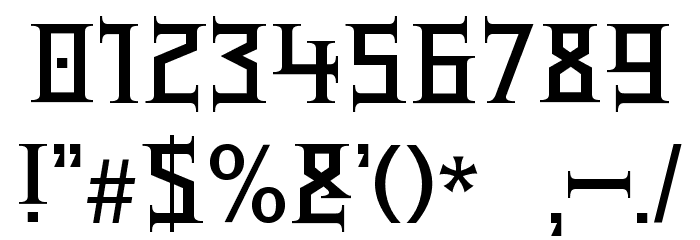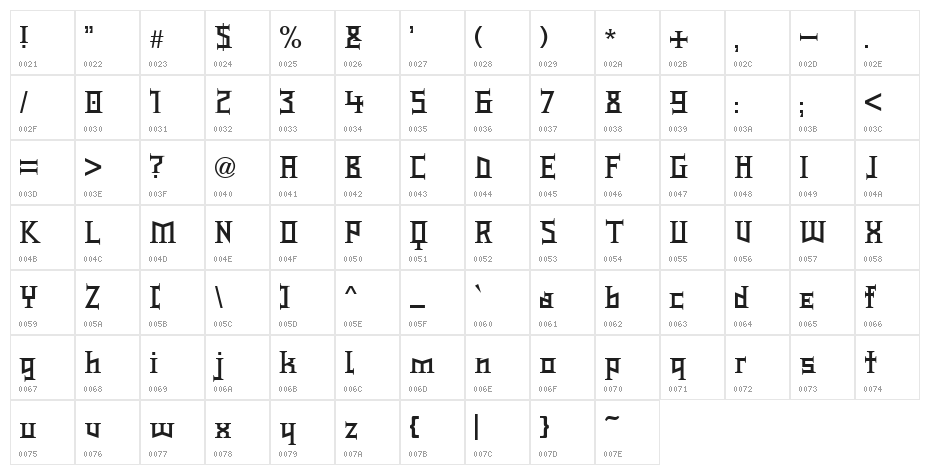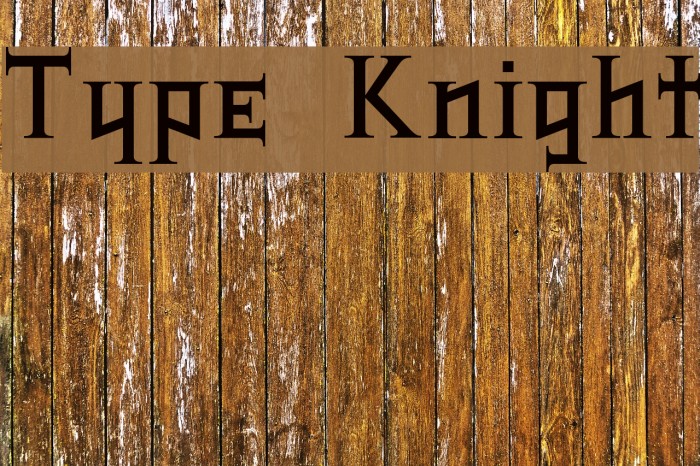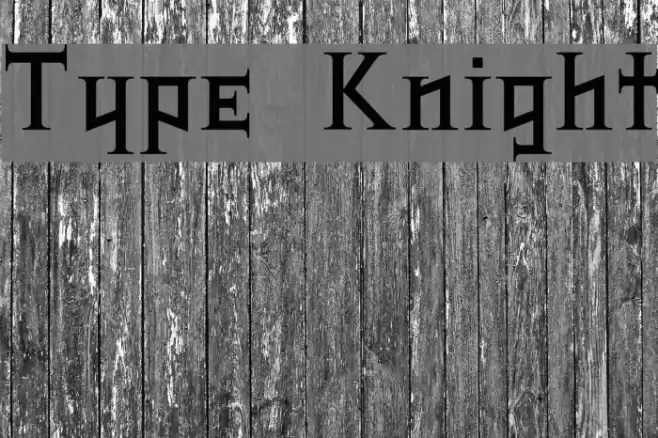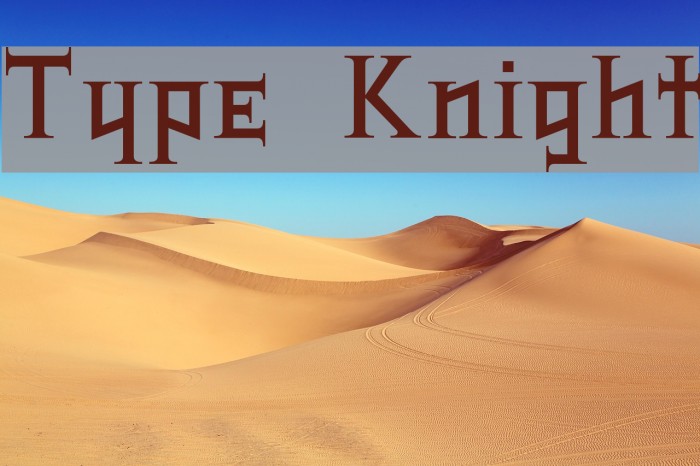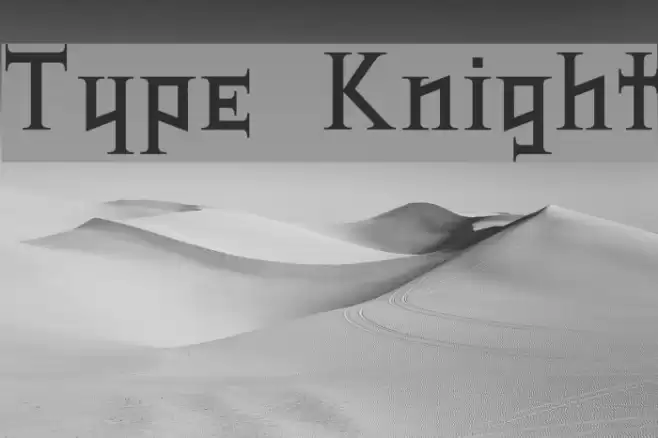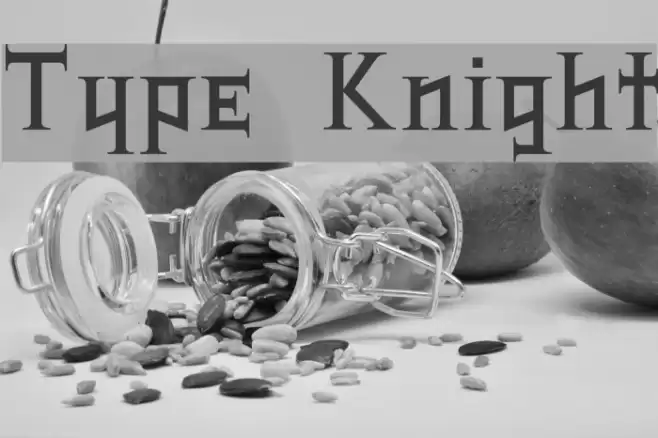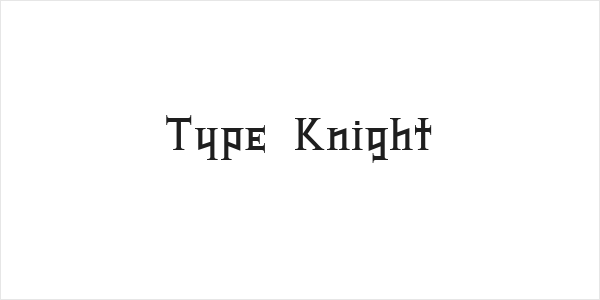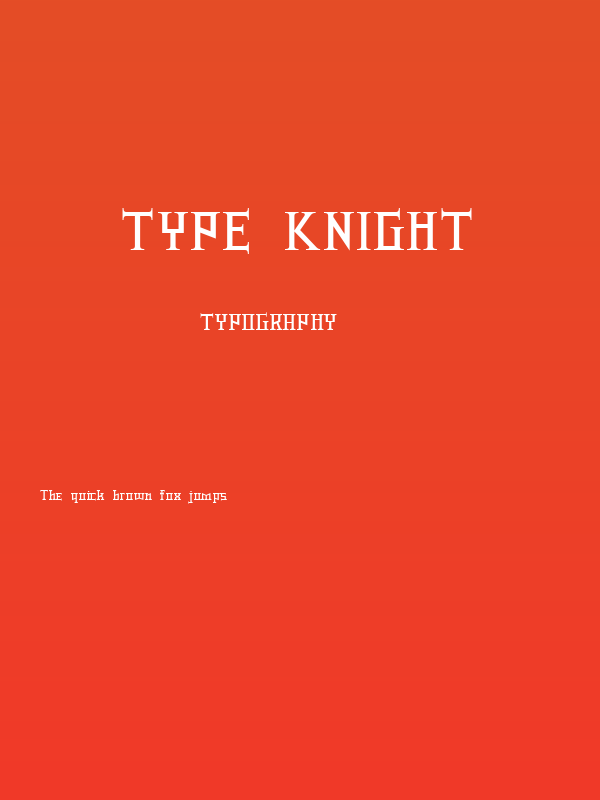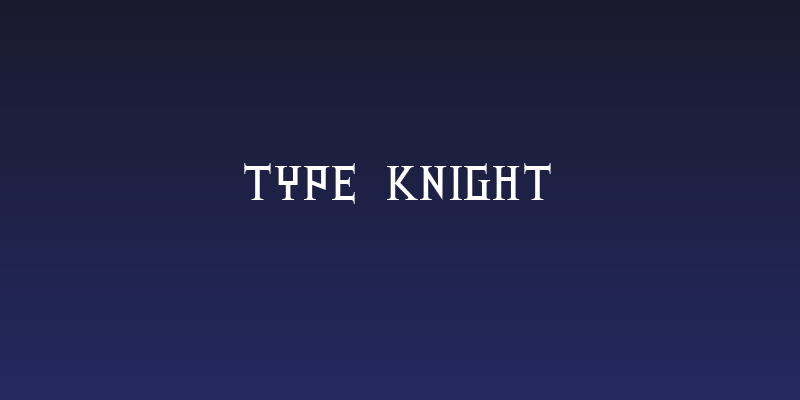
Type Knight Font
Type Knight Description
This font exhibits a bold and striking design, reminiscent of medieval or gothic styles. The characters feature sharp, angular edges and pronounced serifs, giving them a strong and authoritative presence. The uppercase letters are particularly tall and narrow, while the lowercase letters maintain a consistent style with slightly more rounded forms. Numbers and special characters follow the same aesthetic, ensuring a cohesive look across all glyphs. The overall appearance is both decorative and legible, making it suitable for projects that require a touch of historical or fantasy flair.
| Proposed Projects | Ideal for fantasy-themed designs, book covers, posters, and branding that requires a historical or gothic touch. |